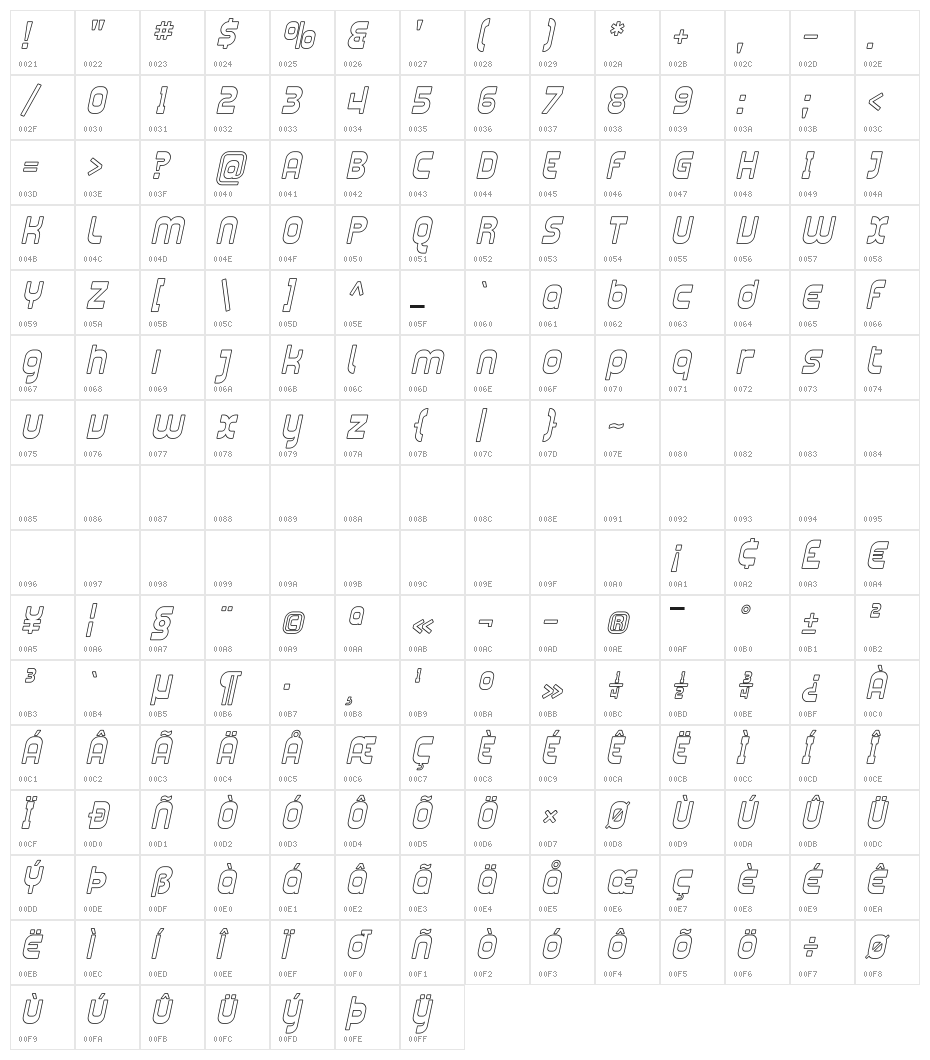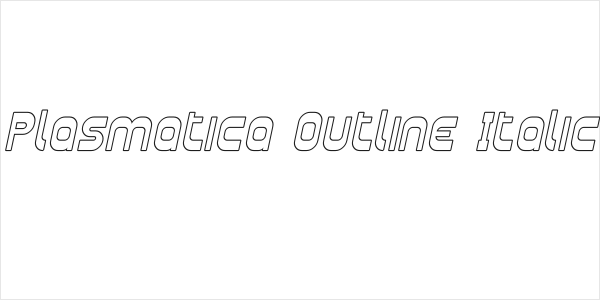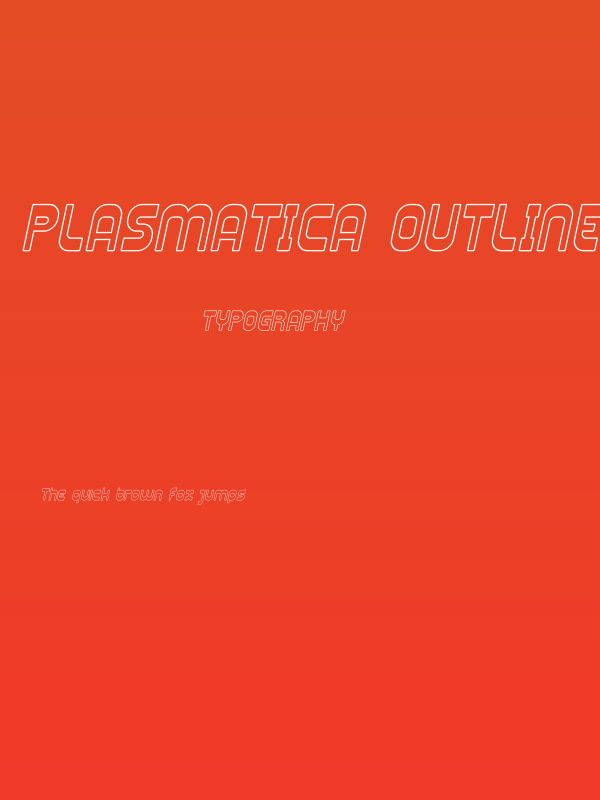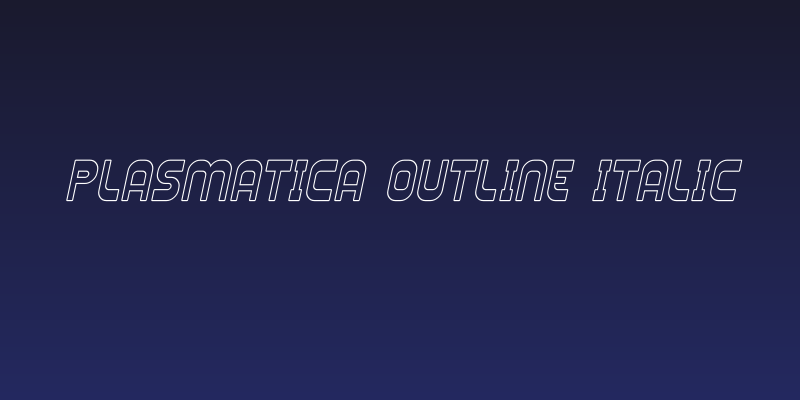
Plasmatica Outline Italic Font
Plasmatica Outline Italic Description
This font features a modern, futuristic design with an outline style that gives it a unique, airy appearance. The italic slant adds a dynamic and forward-moving feel, making it suitable for contemporary and tech-oriented projects. The characters are evenly spaced with a medium contrast in stroke thickness, providing a clean and readable look. Its geometric shapes and sharp angles contribute to its modern aesthetic, while the outline effect adds a layer of sophistication and creativity.